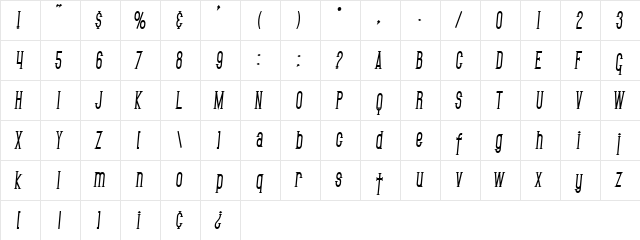
SF Gothican Condensed Bold Italic Font Preview
Design Context for SF Gothican Condensed Typeface
SF Gothican Condensed has the quiet confidence of well-executed sans-serif typography: versatile, unobtrusive, and dependable at any size. Its italic angle brings a sense of urgency and motion to the letterforms. The heavy weight commands attention and anchors typographic hierarchies. Its narrow stance lets it pack a punch even in space-constrained designs.